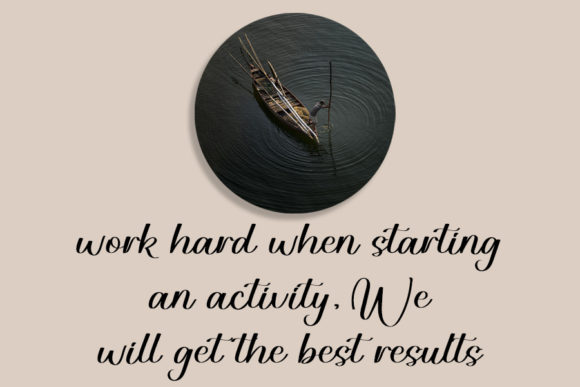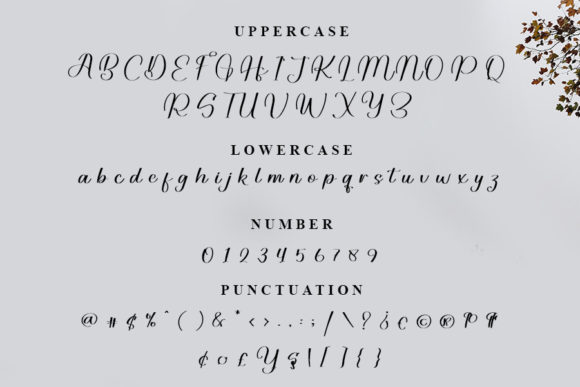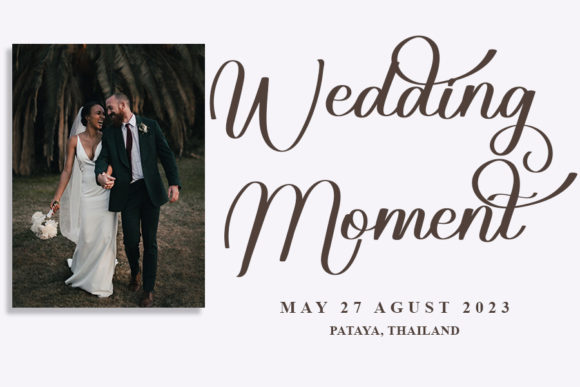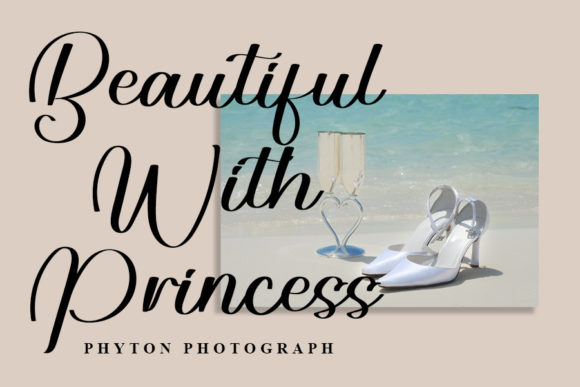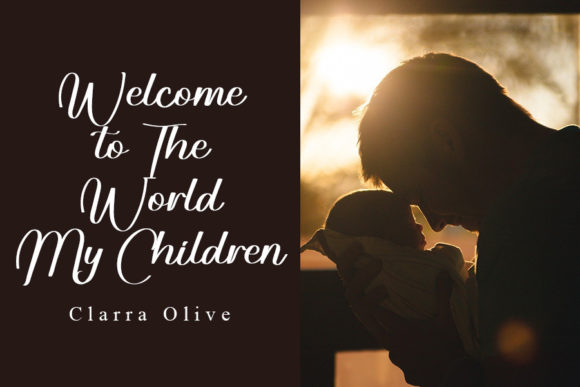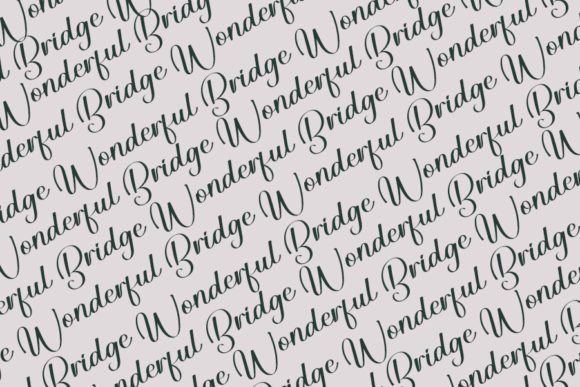
Introducing Bridge Font: Elevate Your Designs with Timeless Elegance
In the world of typography, a font can make or break the aesthetic of a design project. For designers and crafters seeking a touch of sophistication and classic charm, the Bridge Font is an exceptional choice. This stylish handwritten font boasts a contemporary atmosphere, impeccable form, and a balanced, varied style that enhances the beauty of any project.
Inspired by Timeless Classic Calligraphy
Bridge Font draws inspiration from the elegance of classic calligraphy, bringing a sense of tradition and refinement to modern designs. The font’s creation was guided by the principles of timeless typography, ensuring that it remains relevant and stylish across various applications. Whether you’re working on a branding project, packaging, or digital content, Bridge Font offers a versatile and sophisticated solution.
Key Features of Bridge Font
- PUA Encoding: Bridge Font is PUA (Private Use Area) encoded, providing easy access to a wide range of glyphs and ligatures. This feature allows designers to explore various typographic possibilities, making their work more dynamic and engaging.
- Handwritten Style: The font’s handwritten style gives it a personal and approachable feel, perfect for designs that require a touch of warmth and humanity.
- Contemporary Atmosphere: Despite its classic inspiration, Bridge Font exudes a contemporary vibe, making it suitable for modern design projects that demand a fresh and current look.
- Balanced and Varied: The font’s balanced and varied design ensures that it can be used across different mediums and applications, from digital platforms to print materials.
Applications of Bridge Font
Bridge Font’s versatility makes it an excellent choice for a wide range of design projects. Here are some of the areas where this font truly shines:
- Branding and Logos: Create memorable and elegant brand identities with Bridge Font. Its classic yet modern style ensures that your logo stands out and communicates sophistication.
- Digital Content: Enhance your website, blog, or social media graphics with the refined look of Bridge Font. Its readability and aesthetic appeal make it perfect for headings, titles, and short paragraphs.
- Packaging: Add a touch of luxury and elegance to your product packaging with Bridge Font. Its high-end feel is sure to make your products stand out on store shelves.
- Stationery and Invitations: Create beautiful and personalized stationery, invitations, and greeting cards with Bridge Font. Its handwritten style adds a warm and intimate touch to any printed material.
Tips for Using Bridge Font Effectively
To get the most out of Bridge Font, consider the following tips:
- Mix and Match: Experiment with different weights and styles of Bridge Font to create visual hierarchy and add depth to your designs.
- Pair with Simplicity: Bridge Font’s elegance shines best when paired with simple and clean design elements. Avoid clutter and let the font be the focal point.
- Play with Ligatures: Take advantage of Bridge Font’s ligatures and glyphs to add a unique touch to your text. This feature can help create a more personalized and distinctive look.
Bridge Font is a stylish and versatile typeface that brings timeless elegance to modern designs. Its inspiration from classic calligraphy, combined with its contemporary atmosphere and impeccable form, makes it an excellent choice for designers and crafters. With its PUA encoding, handwritten style, and balanced design, Bridge Font is poised to elevate the aesthetic of any project. Whether you’re working on branding, digital content, packaging, or stationery, this font offers a sophisticated solution that will leave a lasting impression.